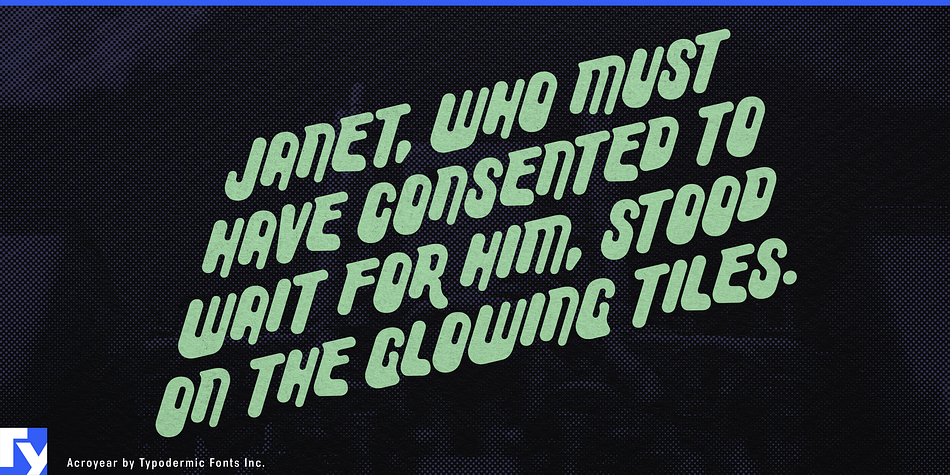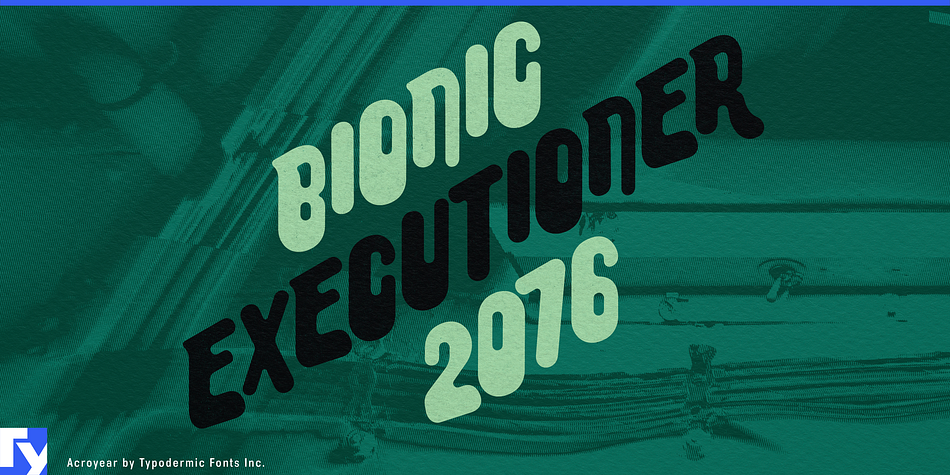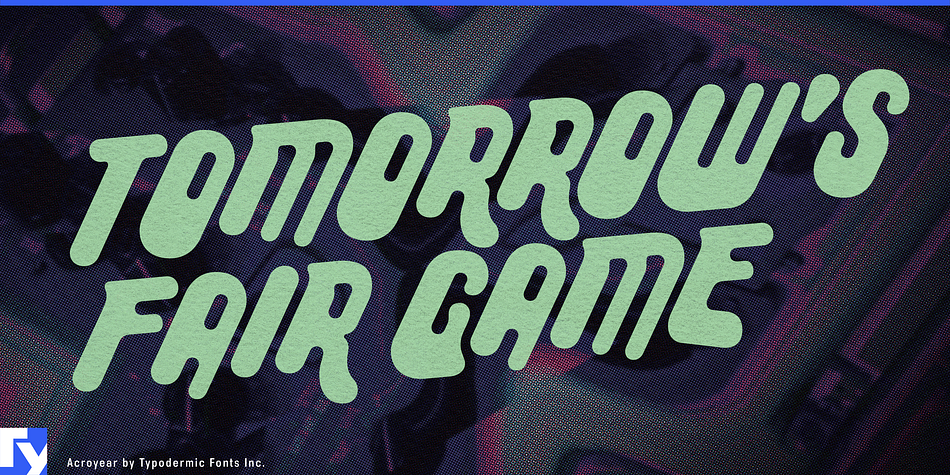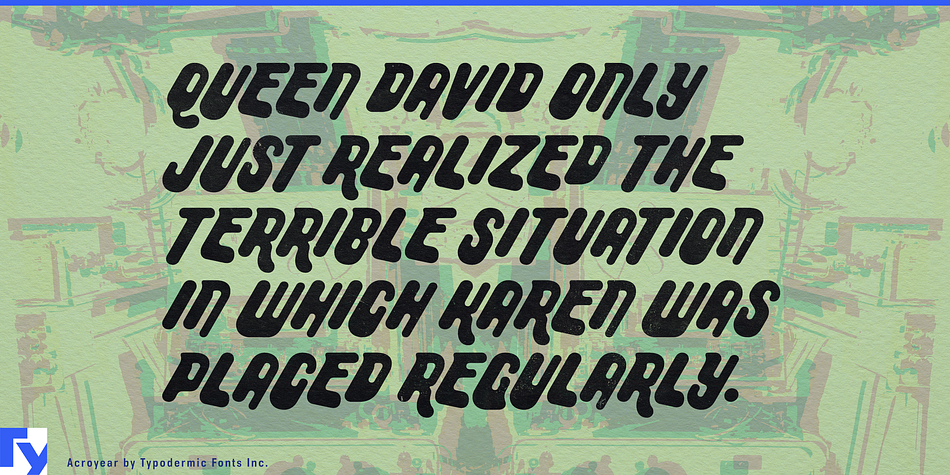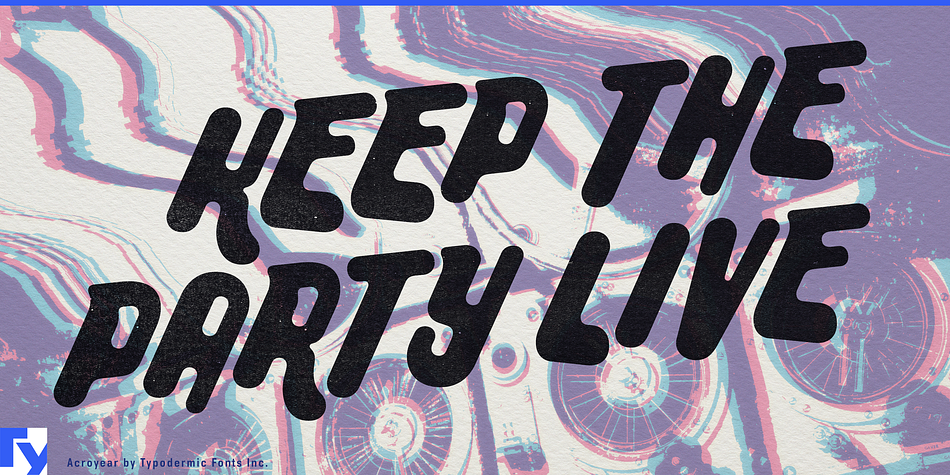
Acroyear is a comic font published by Typodermic Fonts Inc.
Acroyear is a bizarre display typeface based on a soft, capsule form. While Acroyear can be set horizontally, it truly comes to life when placed on an upward incline. Most Latin-based European, Greek, and some Cyrillic-based writing systems are supported, including the following languages. Afaan Oromo, Afar, Afrikaans, Albanian, Alsatian, Aromanian, Aymara, Bashkir (Latin), Basque, Belarusian (Latin), Bemba, Bikol, Bosnian, Breton, Bulgarian, Cape Verdean, Creole, Catalan, Cebuano, Chamorro, Chavacano, Chichewa, Crimean Tatar (Latin), Croatian, Czech, Danish, Dawan, Dholuo, Dutch, English, Estonian, Faroese, Fijian, Filipino, Finnish, French, Frisian, Friulian, Gagauz (Latin), Galician, Ganda, Genoese, German, Greek, Greenlandic, Guadeloupean Creole, Haitian Creole, Hawaiian, Hiligaynon, Hungarian, Icelandic, Ilocano, Indonesian, Irish, Italian, Jamaican, Kaqchikel, Karakalpak (Latin), Kashubian, Kikongo, Kinyarwanda, Kirundi, Komi-Permyak, Kurdish (Latin), Latvian, Lithuanian, Lombard, Low Saxon, Luxembourgish, Maasai, Macedonian, Makhuwa, Malay, Maltese, Māori, Moldovan, Montenegrin, Ndebele, Neapolitan, Norwegian, Novial, Occitan, Ossetian (Latin), Papiamento, Piedmontese, Polish, Portuguese, Quechua, Rarotongan, Romanian, Romansh, Russian, Sami, Sango, Saramaccan, Sardinian, Scottish Gaelic, Serbian, Serbian (Latin), Shona, Sicilian, Silesian, Slovak, Slovenian, Somali, Sorbian, Sotho, Spanish, Swahili, Swazi, Swedish, Tagalog, Tahitian, Tetum, Tongan, Tshiluba, Tsonga, Tswana, Tumbuka, Turkish, Turkmen (Latin), Tuvaluan, Uzbek (Latin), Ukrainian, Venetian, Vepsian, Võro, Walloon, Waray-Waray, Wayuu, Welsh, Wolof, Xhosa, Yapese, Zapotec Zulu and Zuni.